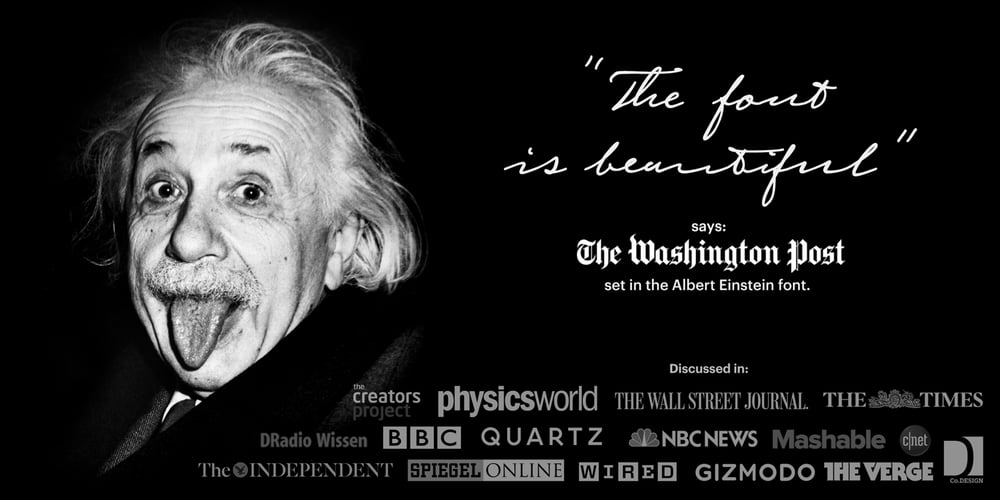
Albert Einstein
Albert Einstein font
Albert Einstein Font Family was designed by Harald Geisler, Albert Einstein, Elizabeth Waterhouse and published by Harald Geisler. Albert Einstein contains 1 styles and family package options. “Harald Geisler wants to make you as brilliant as Albert Einstein. Or at least let you write like him. Or at least write in his handwriting.” — The Wall Street Journal Imagine you could write like Albert Einstein. The Albert Einstein font enables you to do exactly that. In an joined effort, creators Harald Geisler and Elizabeth Waterhouse, spend over 7 years on finalising the project. It was made possible with the help of the Albert Einstein Archive, the Albert Einstein Estate, and funding by a successful Kickstarter Campaign of 2, 334 backers. The outcome was worth the effort: a font unprecedented in aesthetic technique and a benchmark for handwriting fonts. To create a result that is true to the original, Harald Geisler developed a method to analyse the movement of the famous writer. Letter by letter, every glyph was digitally re-written to create a seamlessly working font. It is the only font that holds 5 variations for each lowercase and uppercase-letter, number, and punctuation sign. Each based on meticulous detail to the original samples of Albert Einstein’s handwriting. The OpenType contextual alternates feature dynamically arranges the letters automatically as you type to ensure that no repeated letter forms are placed next to each other. Stylistic variants can also be accessed through stylistic sets. The font has 10 fine-tuned weights ranging from extra-light to fine and extra bold to heavy. The result is a vivid handwritten text true to the original. A PDF documentation, showing step by step how the font was made and comparing numerous original samples, is included with the font and can be downloaded here. The work has been recognised internationally, by press, Einstein fans, and designers. Some quotes used in images: “The font is beautiful“ — Washington Post “If you could write like Einstein, would it help you to think like Einstein?” — The Times (London) “Finally, if your colleagues aren’t taking you seriously, then perhaps you could start sending e-mails in a new font that mimics the handwriting of Albert Einstein.” — Physics World “Geisler and Waterhouse are really asking deeper questions about the diminishing (or evolving) role of our flawed, variable penmanship as a conduit of thought in today’s pixel-perfect landscape.” — QUARTZ “Your writing will look imaginative — which is exactly what Einstein would’ve wanted.” — Huffington Post Arts & Culture “Forget Myriad Pro, Helvetica or Futura. The only font you’ll ever need” — Gizmodo “Capture a piece of Einstein’s genius in your own writing.” — Mashable